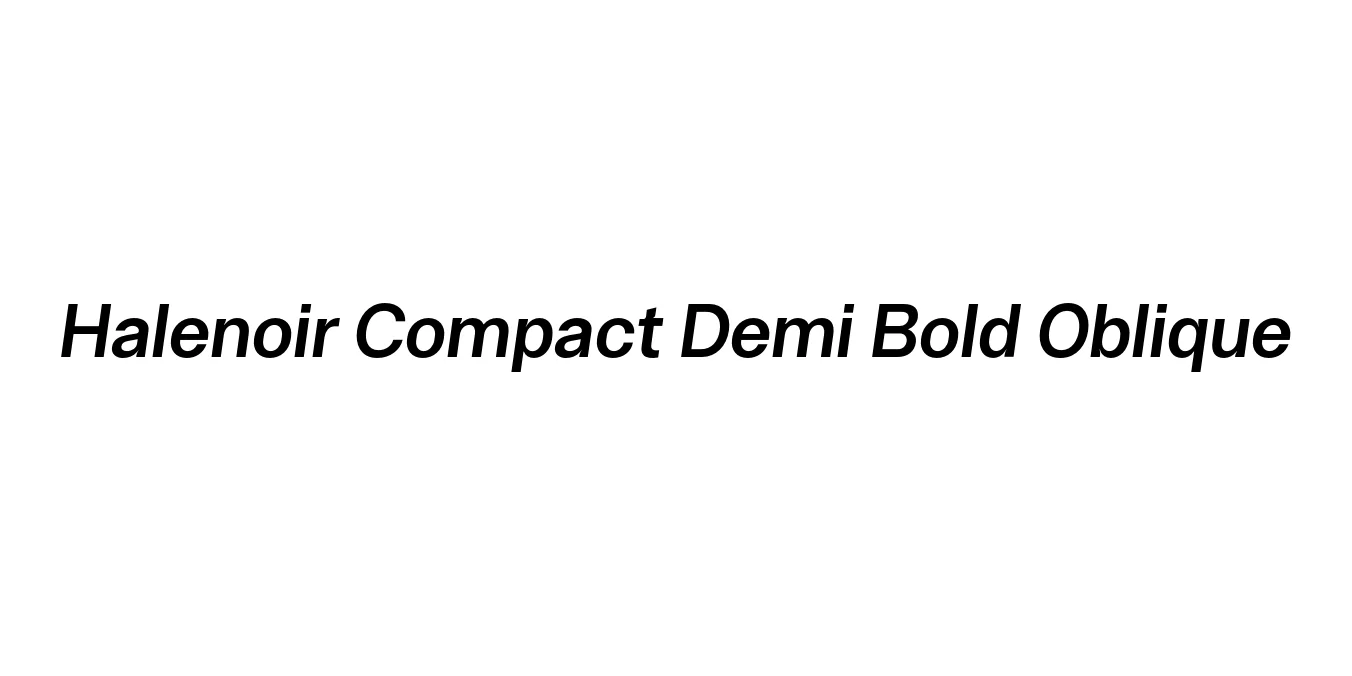
Halenoir Compact Demi Bold Oblique
Designed by Wahyu & Setyo (Studio Sun)
Halenoir Compact Demi Bold Oblique is a contemporary sans-serif typeface designed by Studio Sun. It represents a refined evolution of the geometric neo-grotesque tradition, blending technical precision with modern aesthetic demands. The "Compact" variant offers a tighter tracking and narrower proportions, making it ideal for high-impact headlines where space is at a premium but readability is essential.
This specific weight, Demi Bold Oblique, provides a perfect balance between visual weight and dynamic energy. Its slanted architecture is meticulously crafted to maintain stroke consistency, ensuring that the typeface remains legible even in complex editorial layouts. Whether used in digital interfaces or high-end branding, this font delivers a sophisticated and authoritative presence that defines modern graphic design standards.
Halenoir Compact Demi Bold Oblique Best Uses
Perfect for bold, space-saving titles in magazines and posters.
Ideal for UI elements and hero sections needing a modern, clean touch.
Creates a strong and professional corporate identity for tech and fashion brands.
Provides high visibility and energy for slogans and promotional banners.